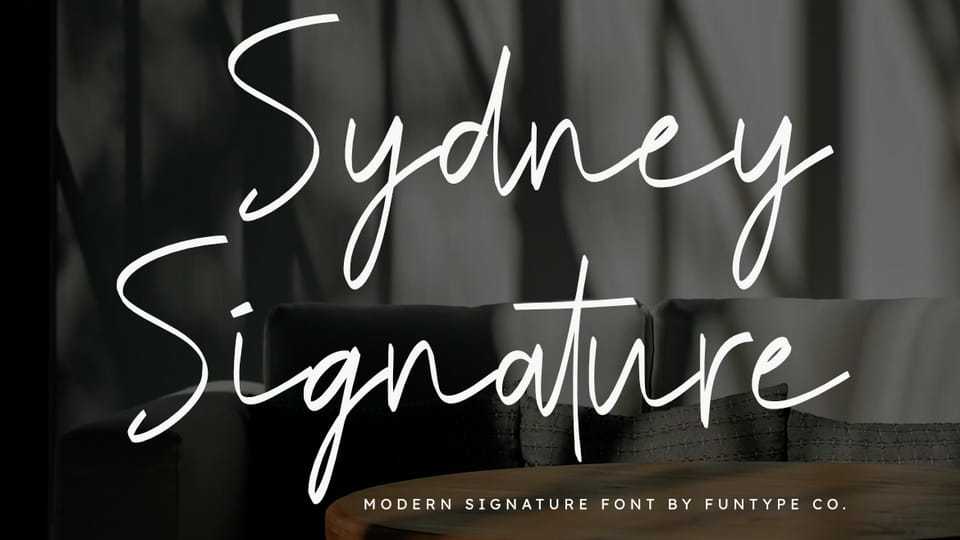
Download Sydney Signature font, a modern signature typeface that radiates cosmopolitan confidence characterized by its sharp, slanted strokes and quick.
Designer: Funtype Co.